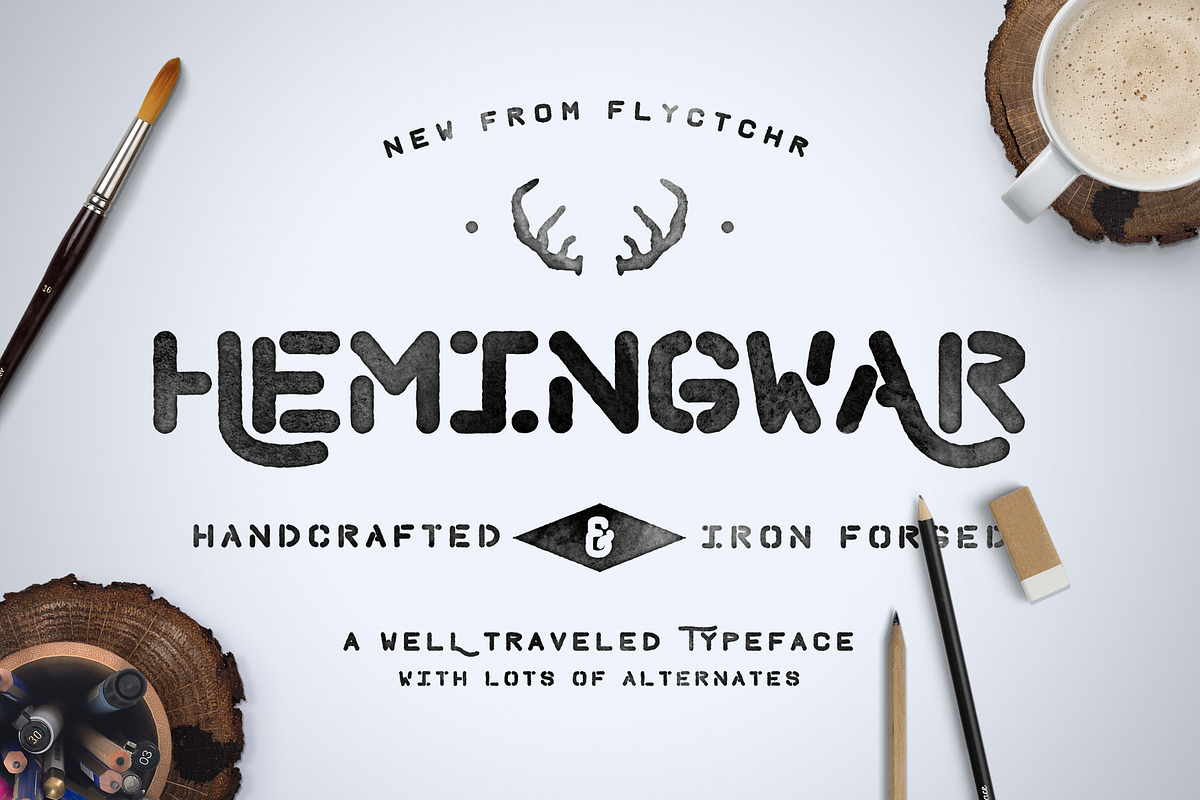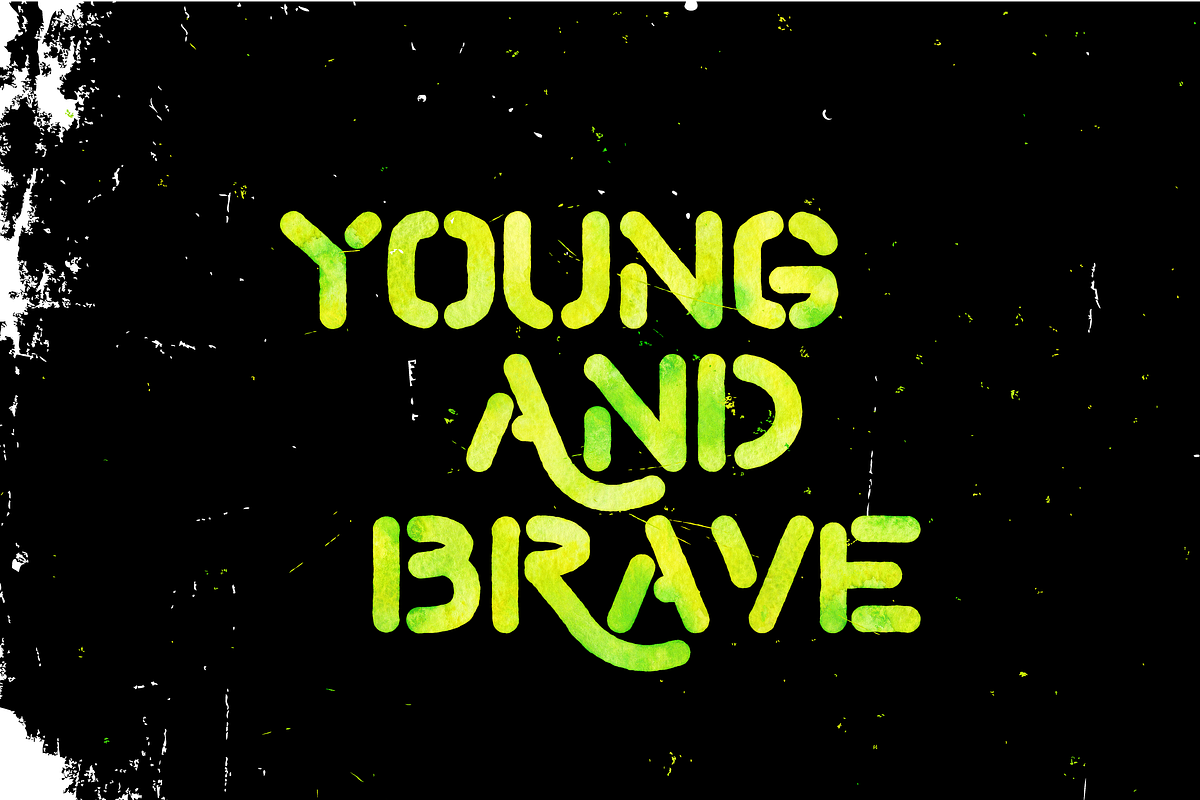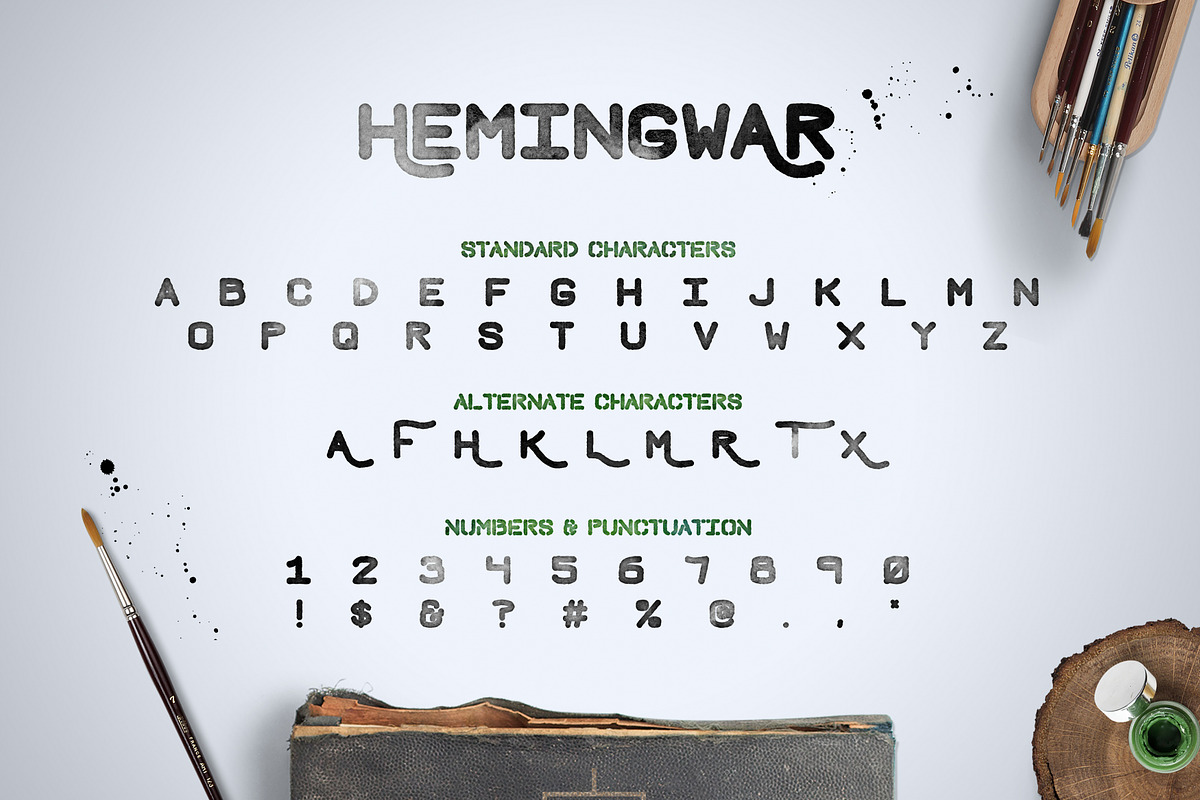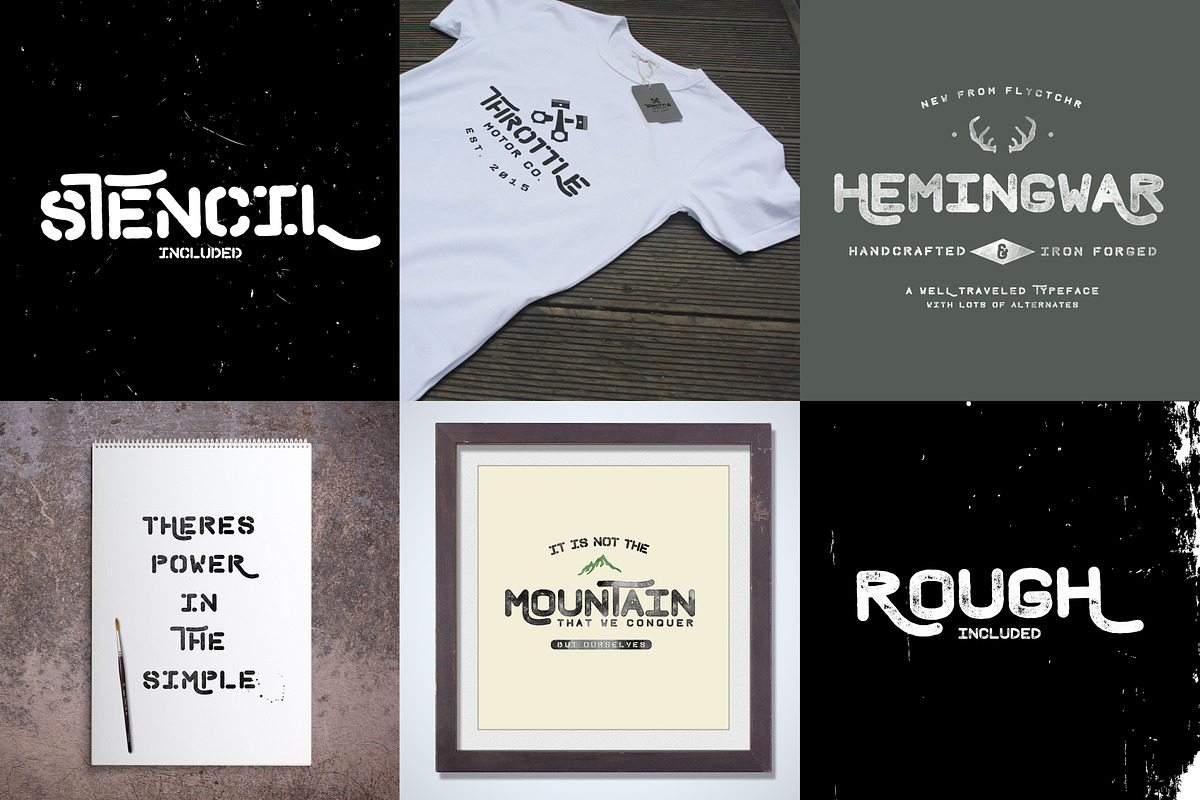
Hemingwar Font + Extras
Hemingwar Font + Extras by Flycatcher Design is a font selected for branding, posters, packaging, typography.
- Keep it classic or add some flair to your project with one of the 9 alternate letters included!
- Perfect for badges, logos and type based design, this font looks great on curved paths or as an accent piece to that beautiful script font y
Why Hemingwar Font + Extras is worth a look
Hemingwar Font + Extras by Flycatcher Design fits naturally into Branding, posters, packaging, typography.